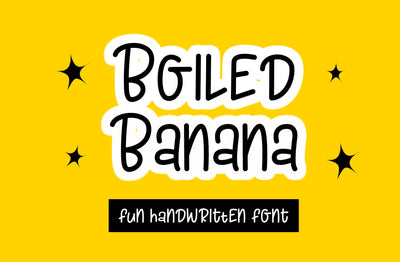
Boiled Banana | fun handwritten font
Boiled Banana is a fun handwritten font.
Uppercase and lowercase letters are almost the same. They can be used simultaneously.